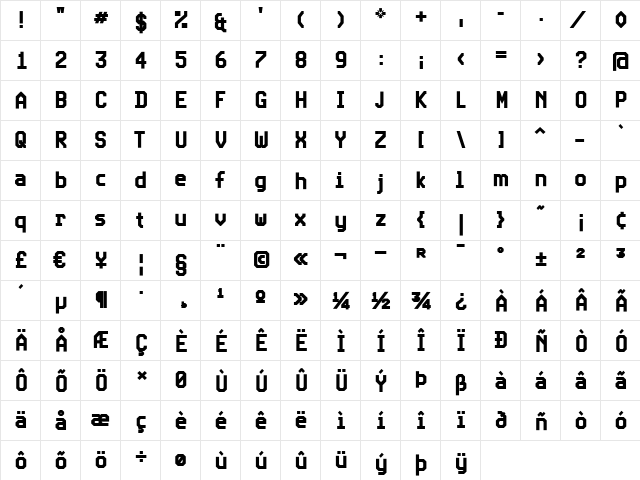
Expo Cond Regular
Design Context for Expo Cond Typeface
Expo Cond is a composed and adaptable typeface that performs quietly and consistently across a wide range of design contexts. Its narrow stance lets it pack a punch even in space-constrained designs.